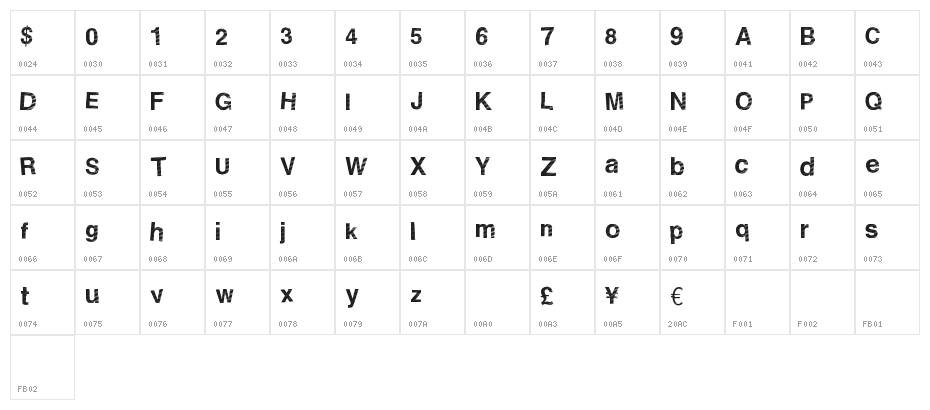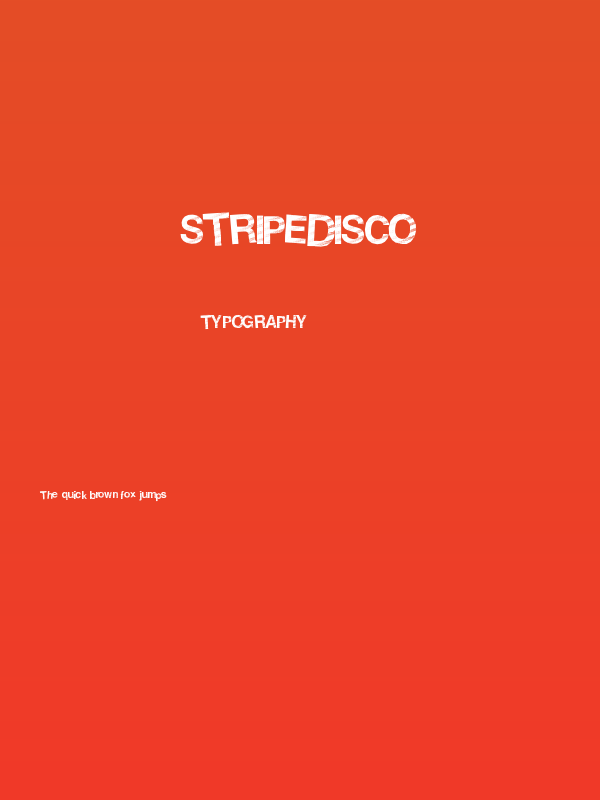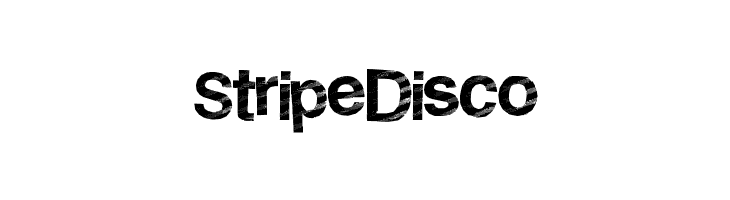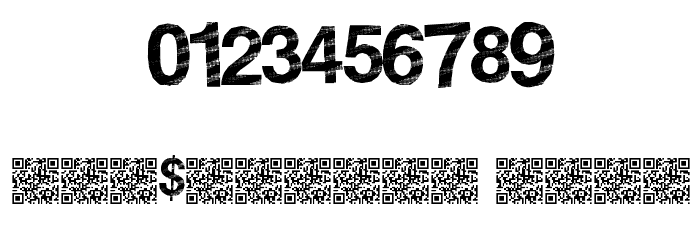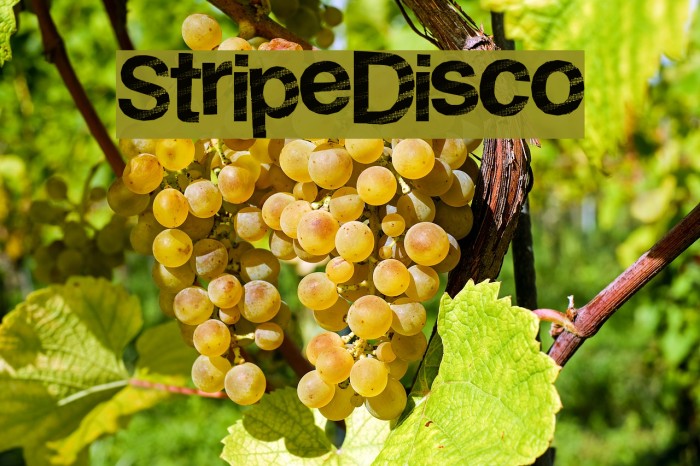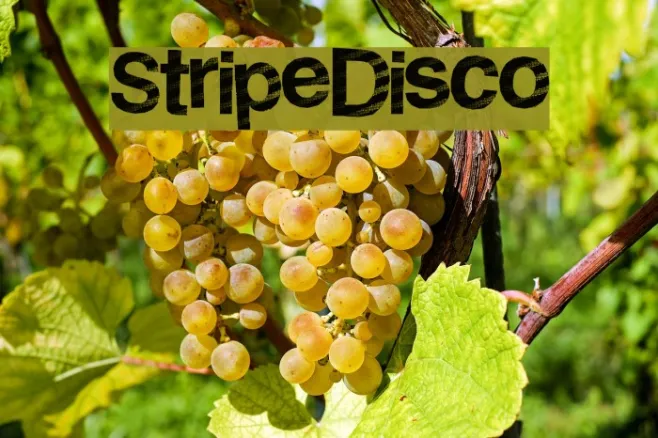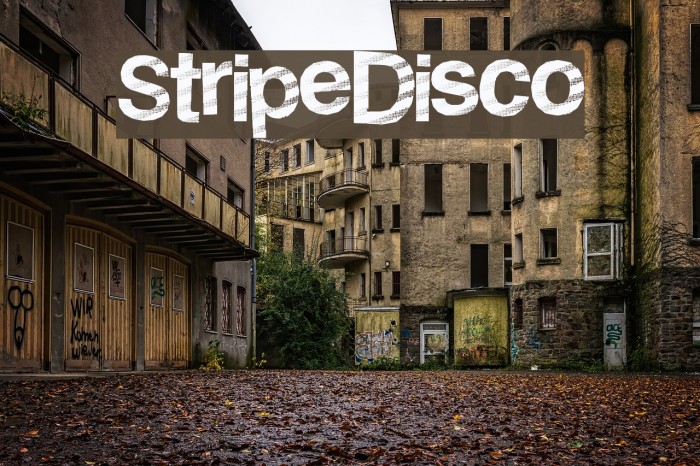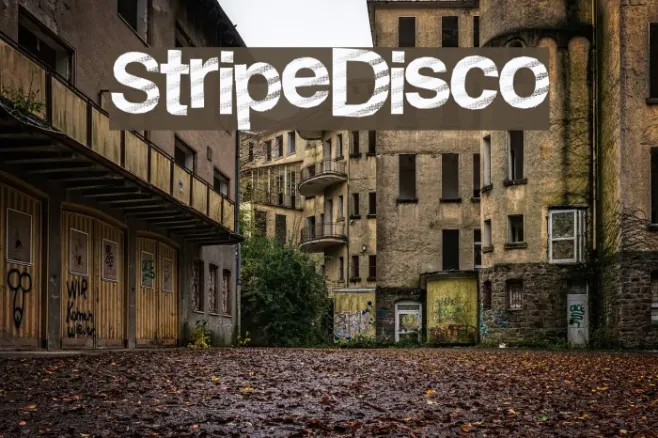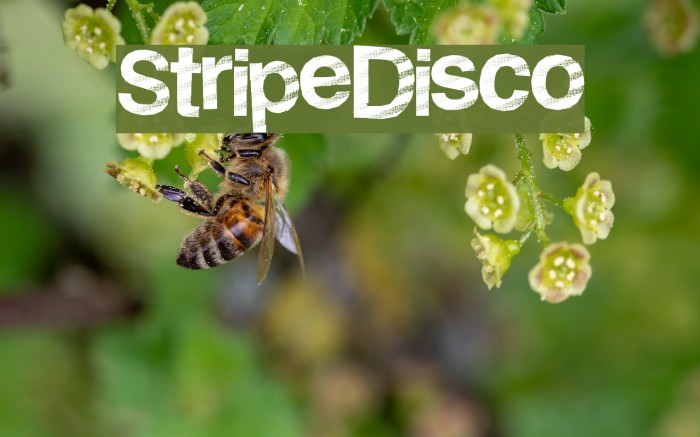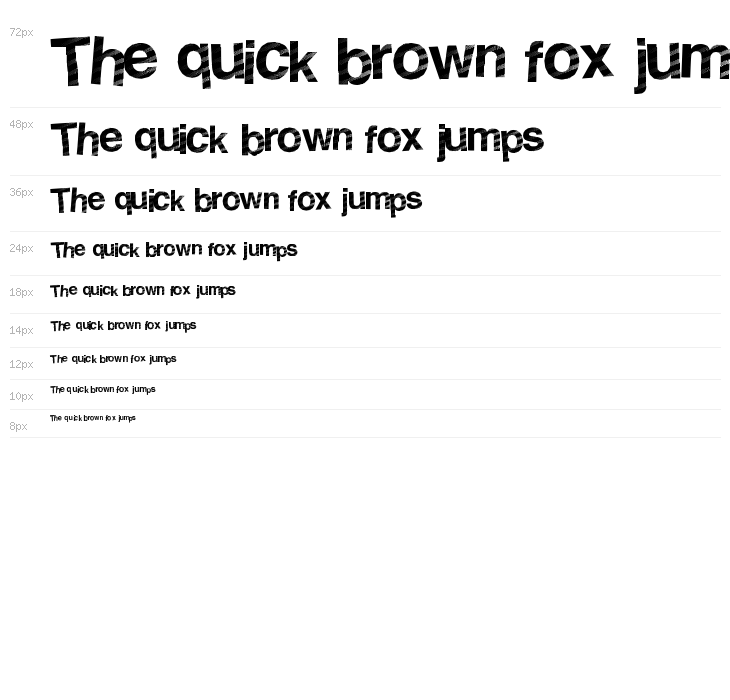
StripeDisco Font
StripeDisco Description
This font features a bold and distressed style, characterized by a textured, grunge-like appearance. The letters are uppercase and lowercase, with numerals and special characters included. Each character has a unique, worn-out look, giving it a vintage and rugged feel. The strokes are thick and bold, with irregular edges that add to the distressed effect. This font is ideal for projects that require a strong, impactful visual presence, such as posters, album covers, or branding for edgy or alternative products.
| Proposed Projects | Ideal for posters, album covers, branding for edgy products, and any design requiring a strong, impactful visual. |